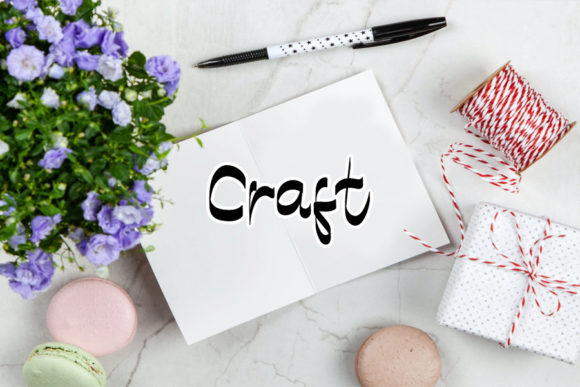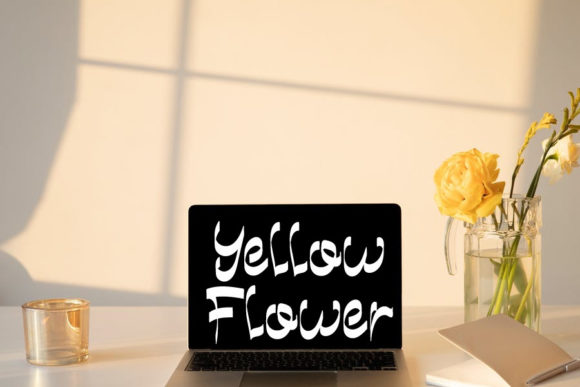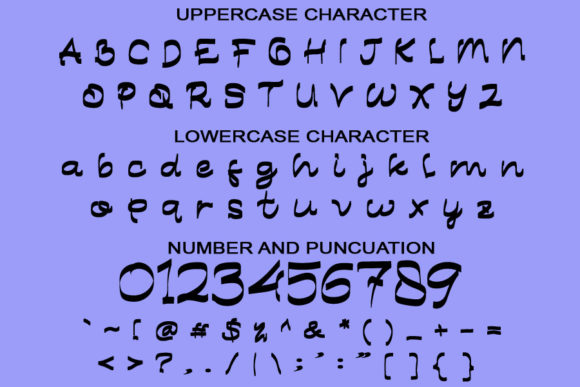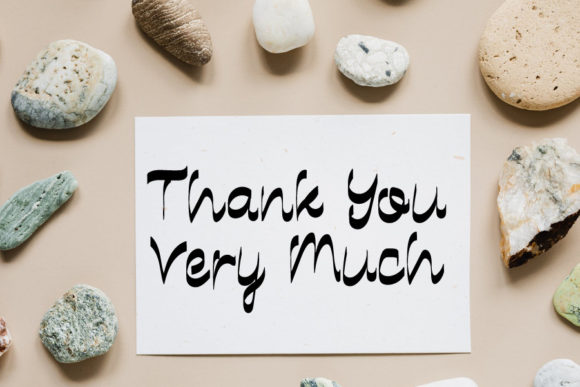
Elegant Font: Elevate Your Designs with Sophistication and Class
In the world of typography, few fonts manage to convey the essence of refinement and luxury as effectively as the Elegant font. This lovely and delicate script font is specifically designed for individuals who seek to infuse their designs with a beautiful and refreshing aesthetic. Whether you’re a seasoned designer or a crafty enthusiast, Elegant font is sure to become your go-to choice for projects that demand a touch of sophistication.
The Characteristics of Elegant Font
Elegant font is distinguished by its fluid, cursive strokes that dance across the page with a sense of effortless grace. Each letter is meticulously crafted to ensure that the font exudes an air of elegance and class, making it perfect for a wide range of applications, from wedding invitations and luxury branding to fashion magazines and high-end product packaging.
Why Choose Elegant Font?
There are several reasons why Elegant font stands out from the crowd:
- Unique and Memorable: The Elegant font’s distinctive appearance ensures that your designs will leave a lasting impression on your audience. Its unique blend of classic and modern elements makes it a versatile choice that can be used in various contexts.
- Highly Readable: Despite its elegant and cursive nature, this font maintains a high level of readability, making it suitable for both headings and body text. This versatility allows designers to use Elegant font across different elements of a design without compromising on aesthetics or legibility.
- Emotional Connection: The Elegant font has the power to evoke emotions and create a connection with the reader. Its delicate and refined appearance can add a touch of warmth and sophistication to your designs, making them more engaging and impactful.
Applications of Elegant Font
The Elegant font’s versatility makes it suitable for a myriad of design projects, including:
- Wedding and Event Invitations: Add a touch of romance and luxury to your wedding invitations, save-the-date cards, and event announcements.
- Luxury Branding: Elevate your brand’s image with the Elegant font, perfect for logos, packaging, and marketing materials that require a sophisticated look.
- Fashion and Beauty: Use the Elegant font in fashion magazines, beauty blogs, and product packaging to convey a sense of style and elegance.
- Stationery and Paper Goods: Create stunning notebooks, journals, and greeting cards that stand out with the Elegant font’s unique charm.
Tips for Using Elegant Font Effectively
To maximize the impact of the Elegant font in your designs, consider the following tips:
- Pair with Complementary Fonts: Combine the Elegant font with simpler, sans-serif fonts for body text to create a balanced and harmonious design.
- Adjust Font Sizes: Play with different font sizes to emphasize headings and create visual hierarchy in your designs.
- Experiment with Colors: While the Elegant font looks stunning in black, don’t be afraid to experiment with other colors that complement your design’s theme.
The Elegant font is a beautiful and refreshing addition to any designer’s toolkit. Its unique blend of elegance, class, and readability makes it an ideal choice for a wide range of projects. Whether you’re looking to create stunning wedding invitations, elevate your luxury brand, or simply add a touch of sophistication to your designs, the Elegant font is sure to exceed your expectations. With its versatility and timeless appeal, this lovely and delicate script font is poised to become a favorite among designers and crafters alike.